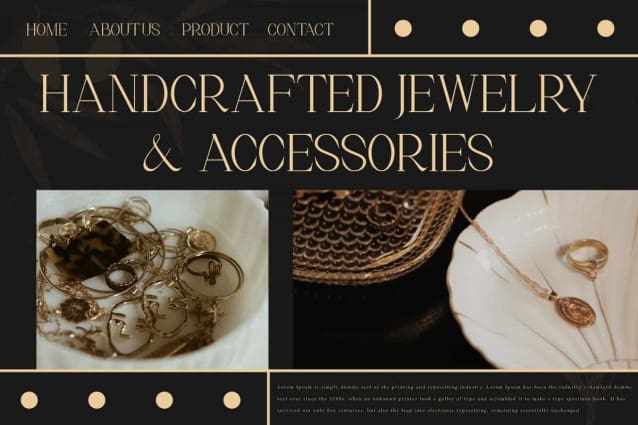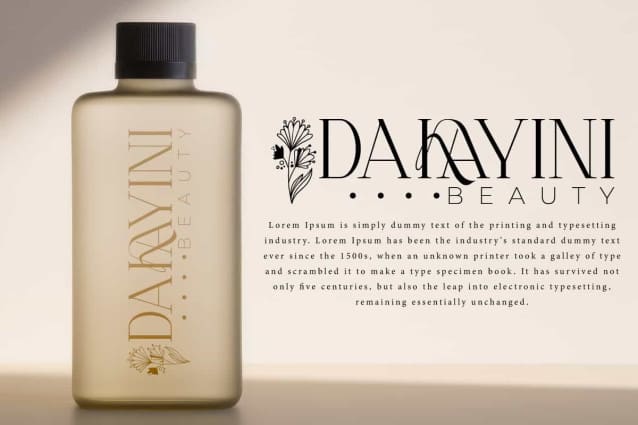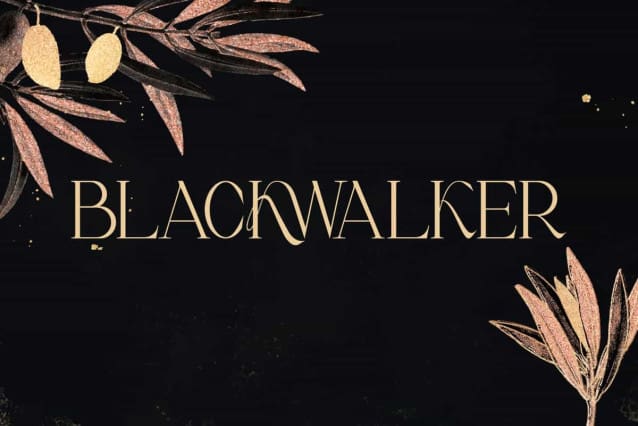
Blackwalker Font
Blackwalker Font is a modern stunning serif display font inspired by elegant typography. This fancy font will be perfect for any projects, it can be used for advertising, blog, brand image, custom design, invitation, label, layout design, logo, quotes, stationery, template design, website, and more!
Blackwalker Font includes full set of Uppercase and Lowercase Basic Characters, Numerals, Punctuation, and Symbol. This font has Ligature characters that it looks amazing. It’s perfect for accessories and jewelry, beauty product, event or wedding organizer, fashion, florist, furniture, real estate, spa salon, etc.